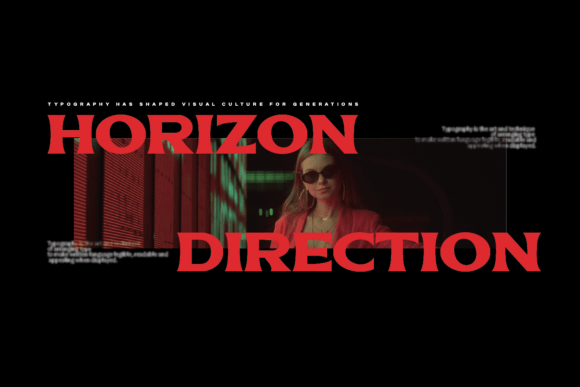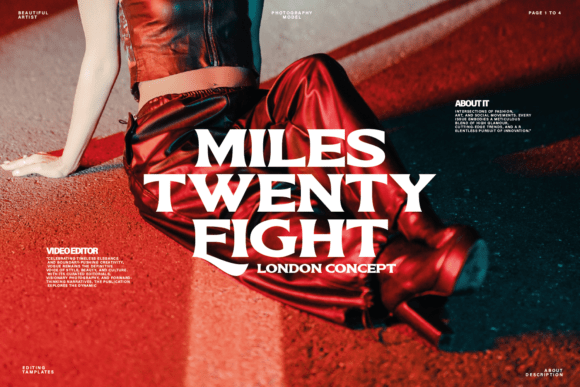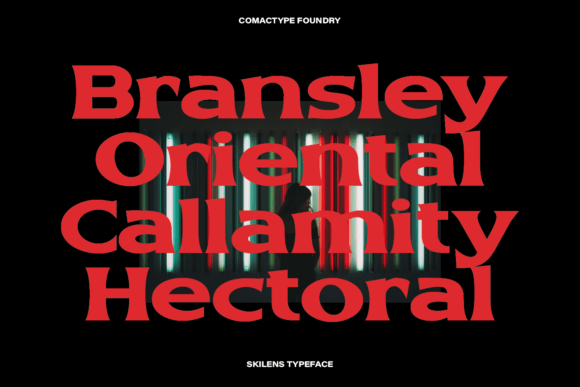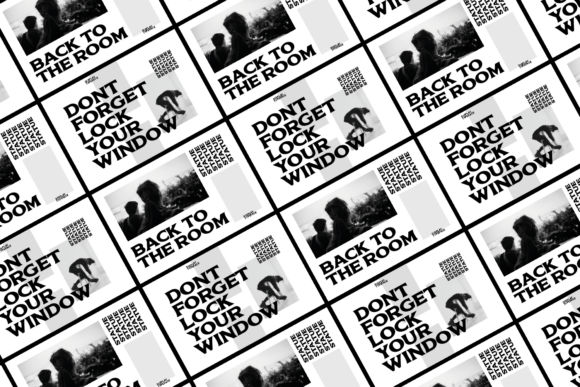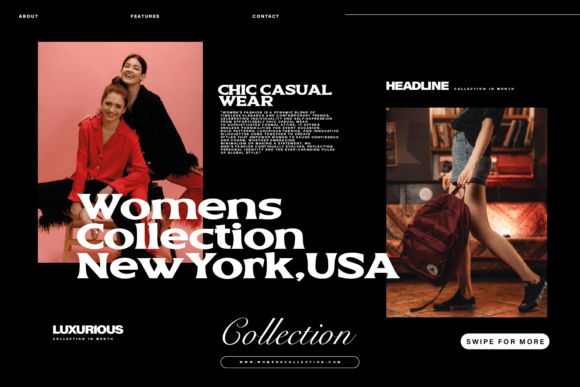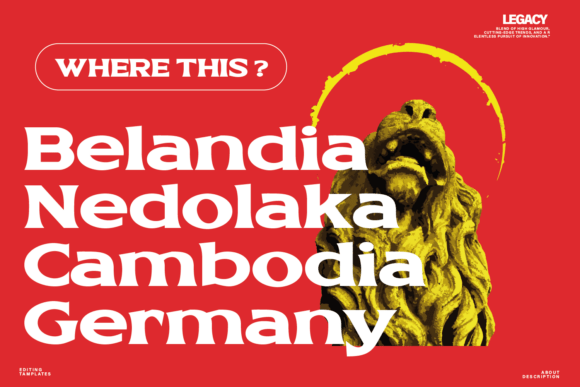
Introduction to Skilens Font
SKILENS – Where Elegance Meets Boldness Elevate your brand’s visual appeal with Skilens, a display serif typeface that blends classic elegance with modern sophistication.
Designed by Hasnul Bolkiah and released by Comatype Foundry, Skilens features bold, striking letterforms that exude luxury and exclusivity With a selection of unique alternates, this typeface offers versatility for branding, editorials, logos, and standout posters.